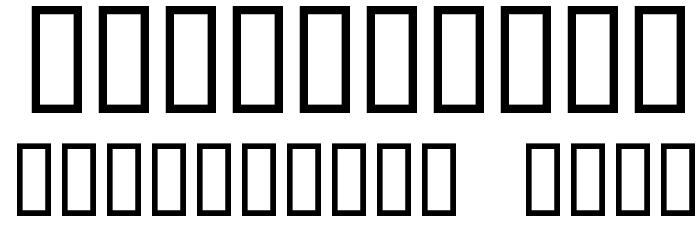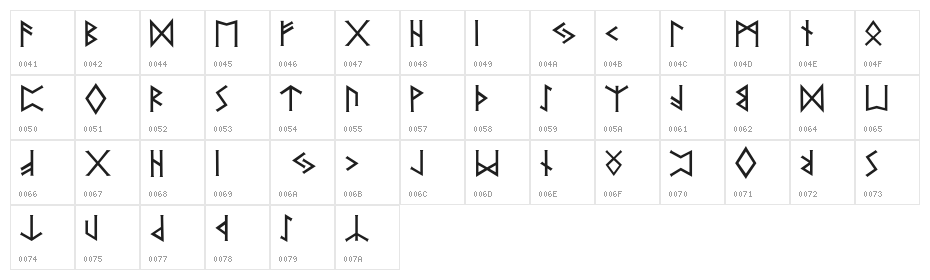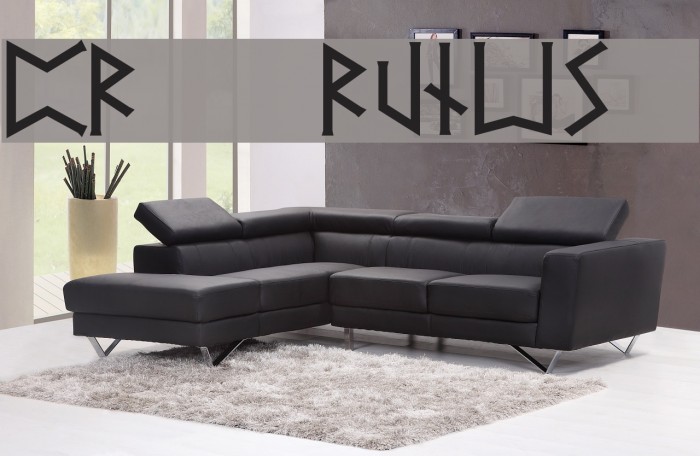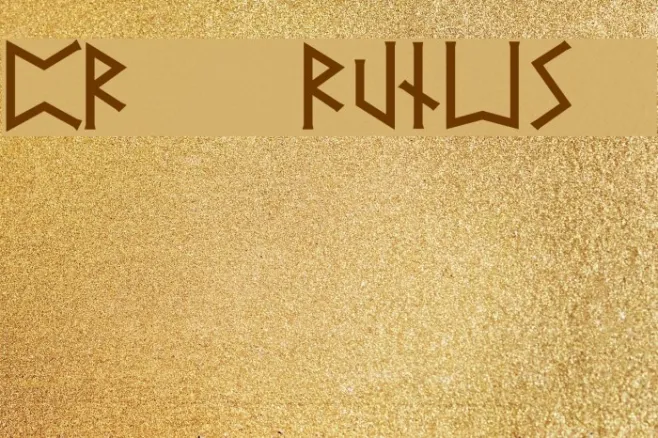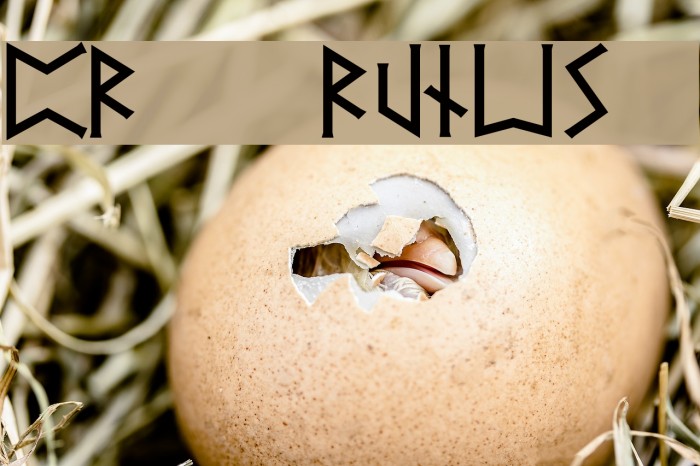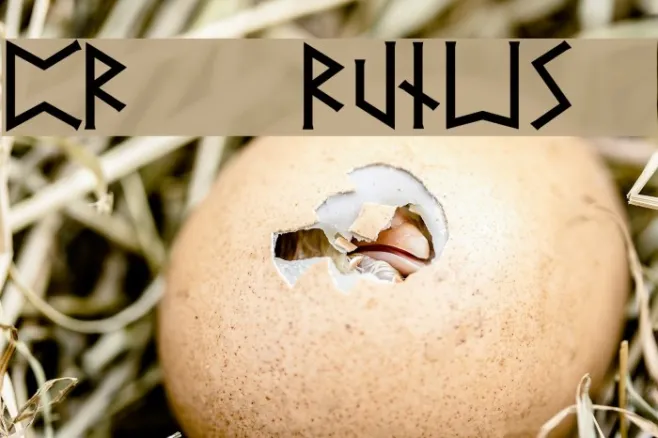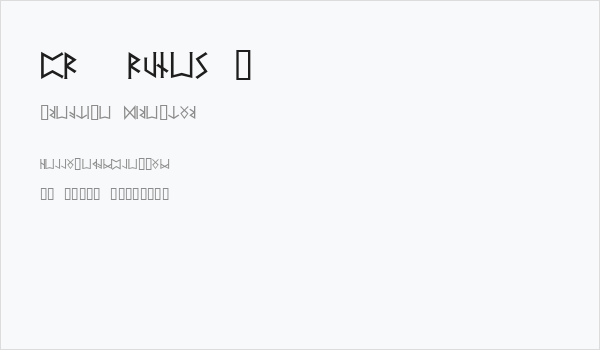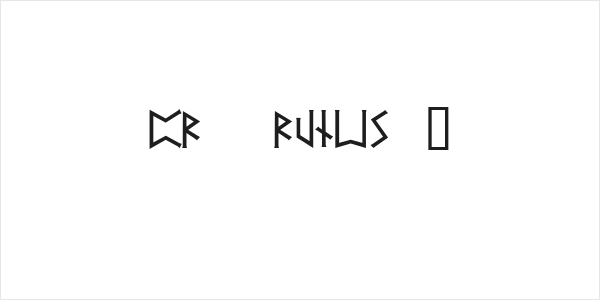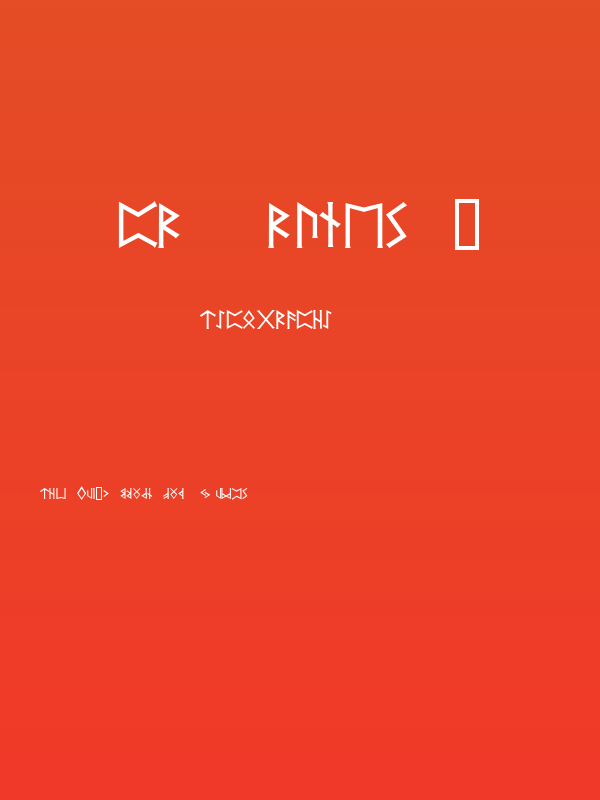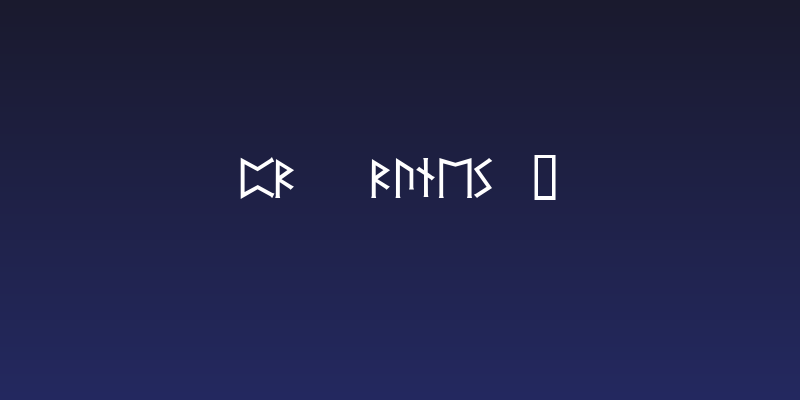
PR Runes 2 Font
PR Runes 2 Description
This font is inspired by ancient runic alphabets, featuring angular and geometric shapes that evoke a sense of mystery and antiquity. The characters are composed of straight lines and sharp angles, creating a bold and striking appearance. Each letter is distinct, with unique forms that resemble traditional runes, making it ideal for projects that require a historical or mystical aesthetic. The numbers and special characters maintain the same angular style, ensuring consistency throughout the typeface. This font is perfect for creative projects that aim to capture the essence of ancient scripts.
Proposed ProjectsIdeal for fantasy-themed designs, historical recreations, game titles, and decorative posters.